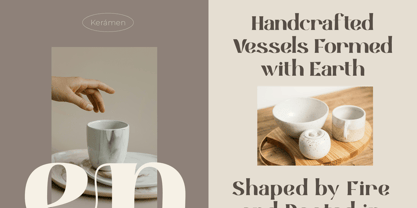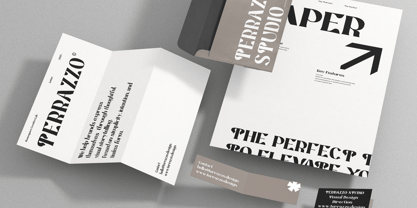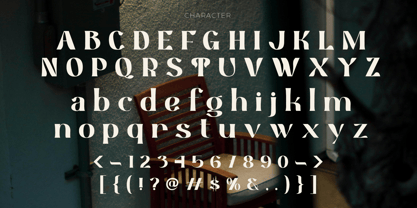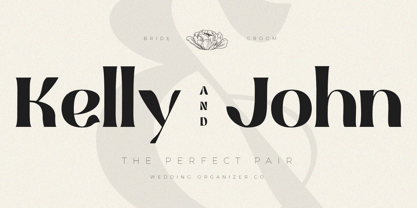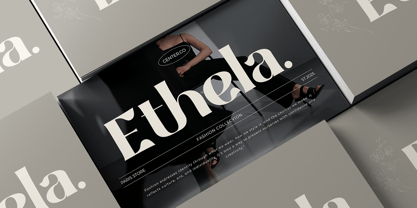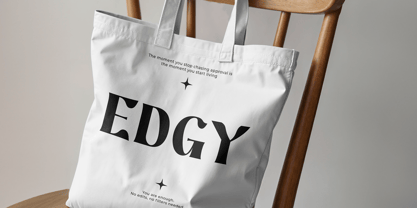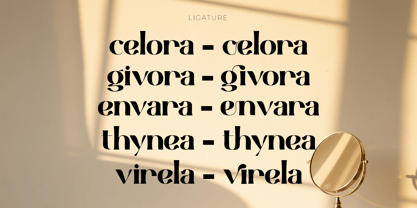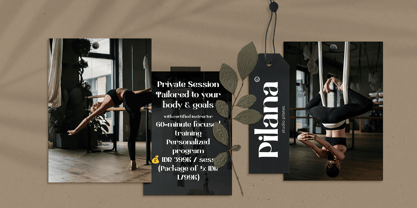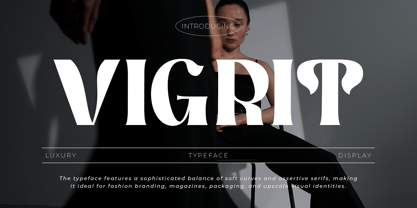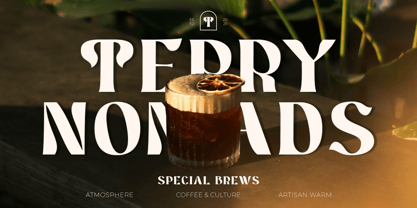
Vigrit
von Jafar07
Die Schriftfamilie Vigrit wurde von Bakhrudin Ja'far entworfen und von Jafar07 veröffentlicht. Vigrit enthält 2 Stile und Familienpaketoptionen. Mehr über diese Familie
Vigrit is a lavish serif display font crafted for bold elegance and confident branding. With high contrast strokes, custom ligatures, and assertive curves, it strikes the perfect balance between modern precision and timeless luxury. It’s made for designers who need a professional font that elevates logos, headlines, and editorial layouts. Whether you're working on luxury branding, a tech-forward identity, or a corporate design, Vigrit adapts with presence and style